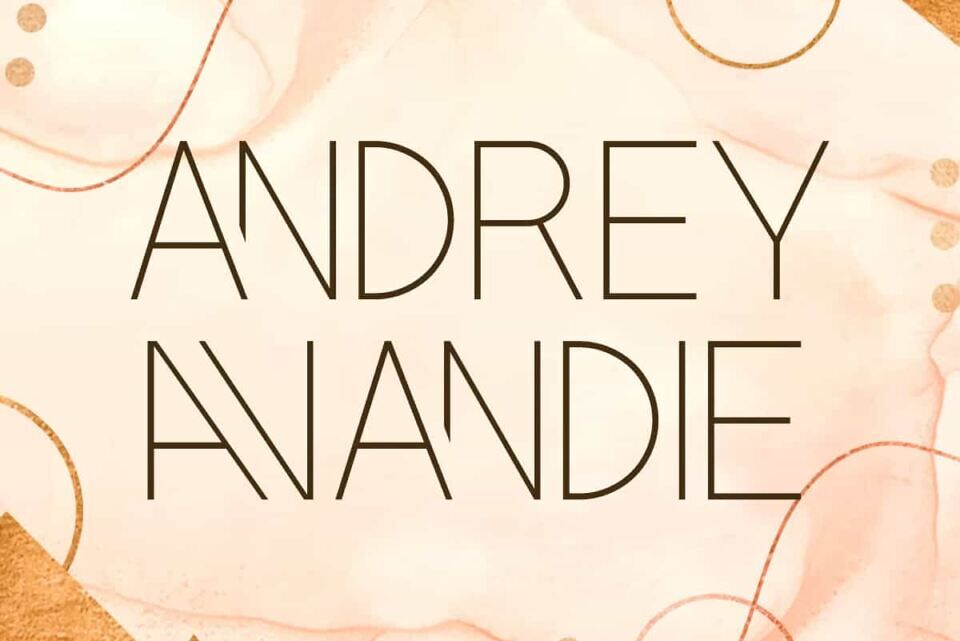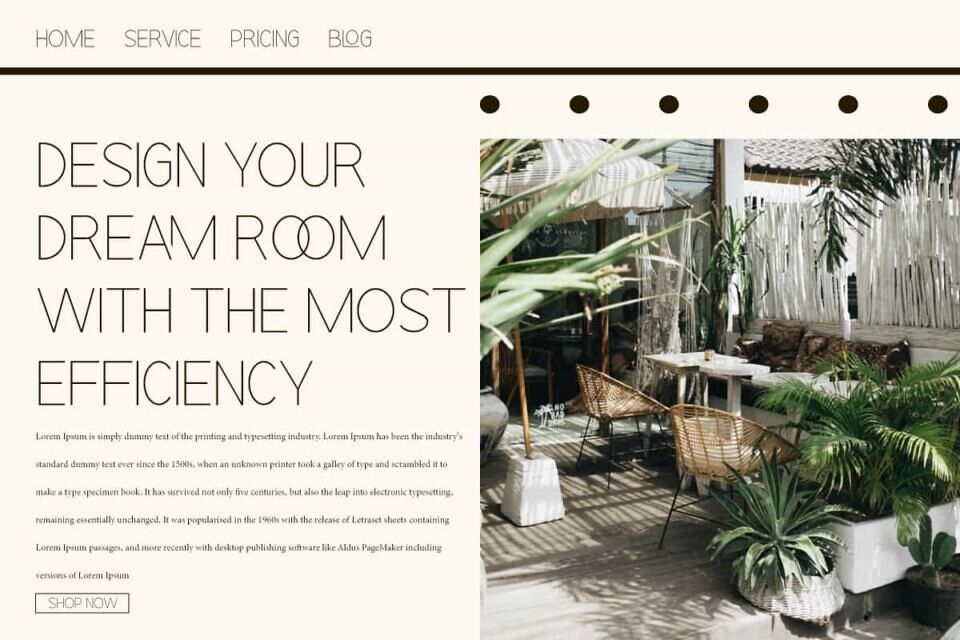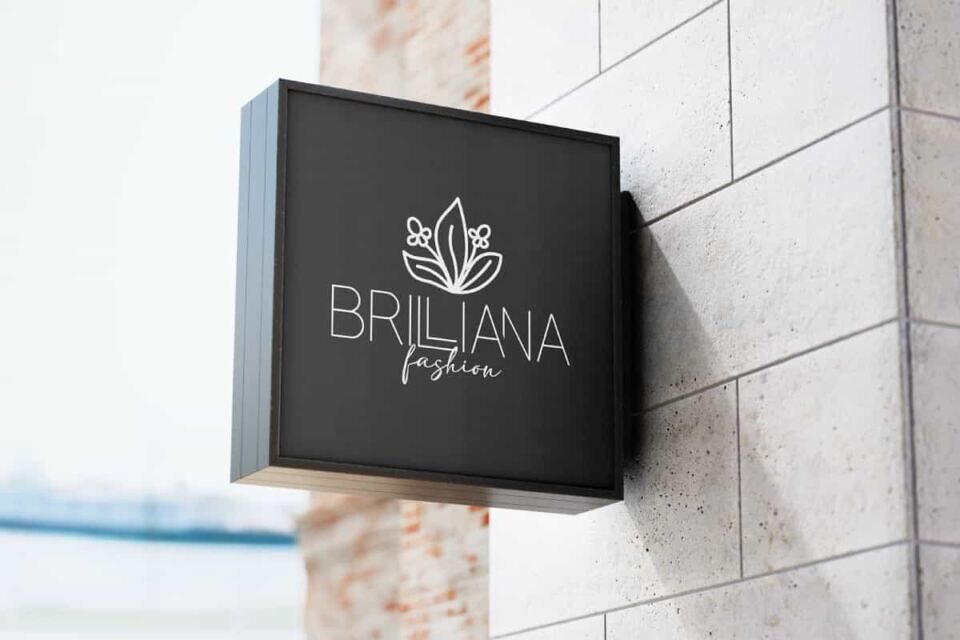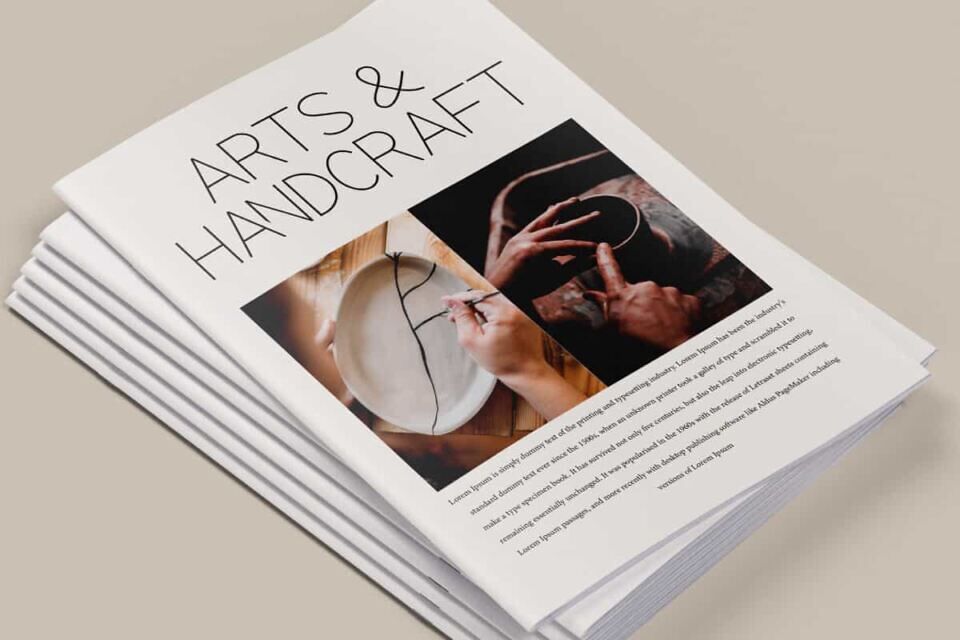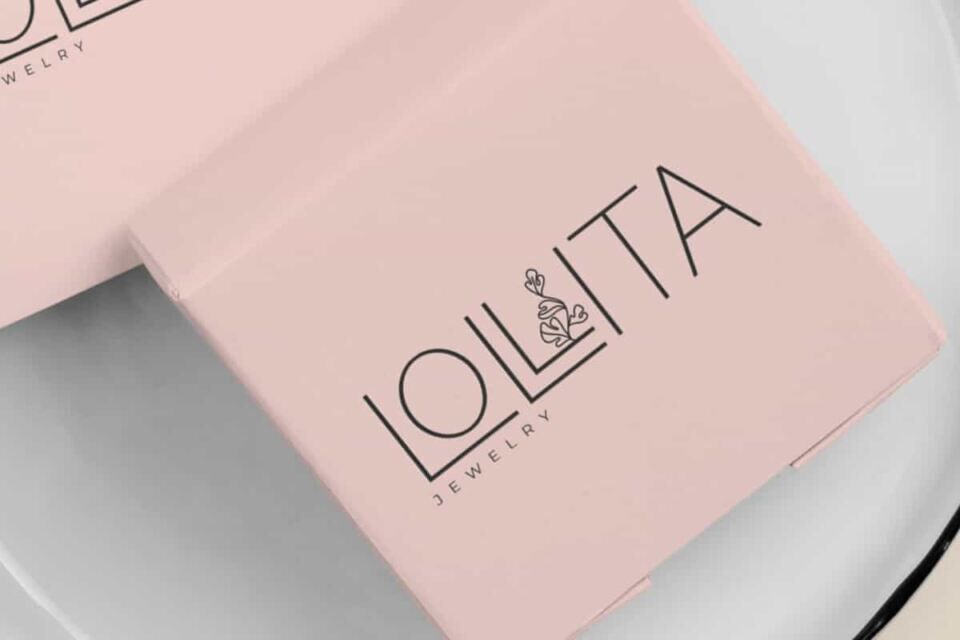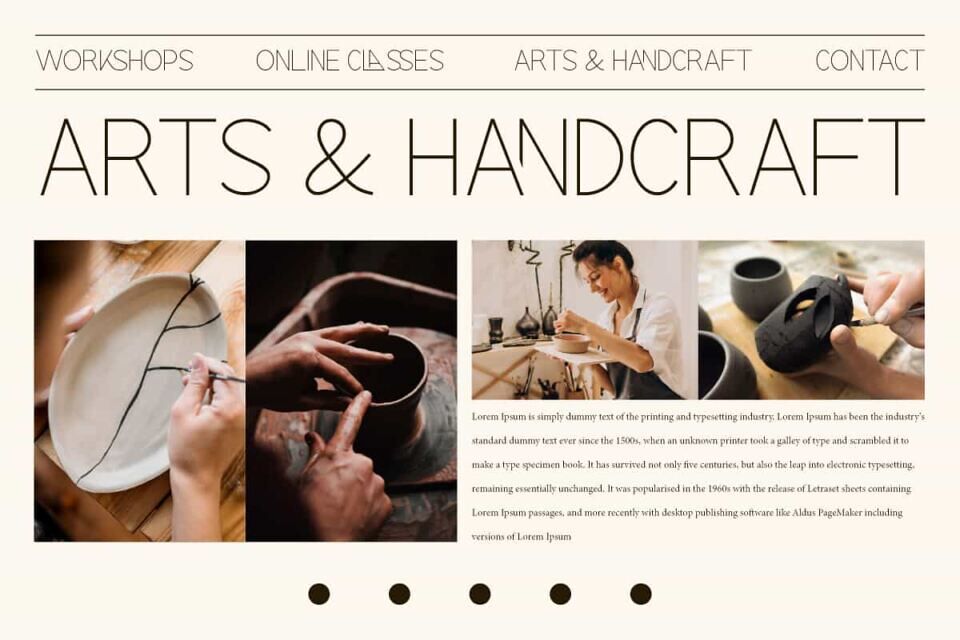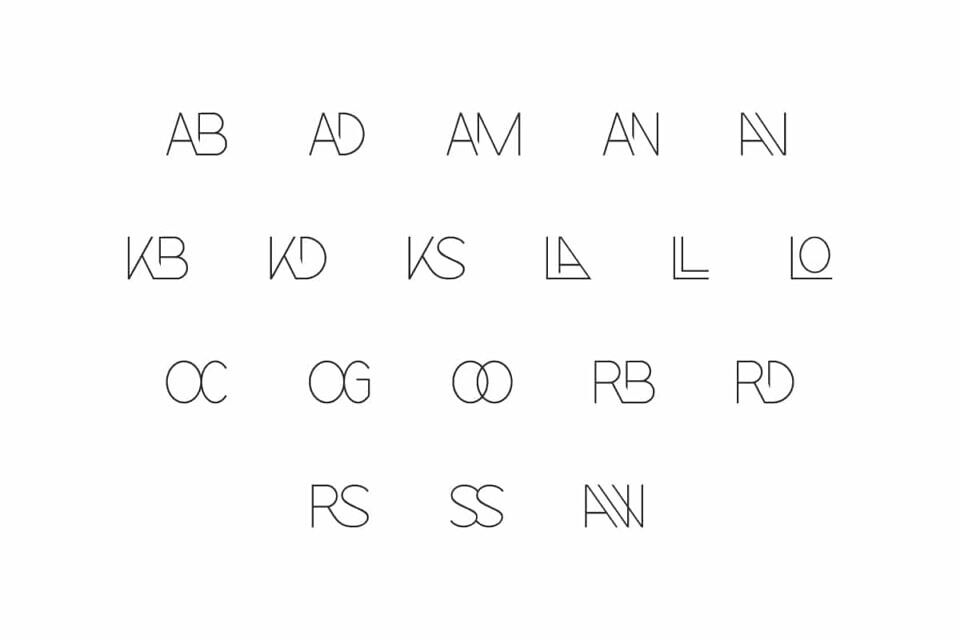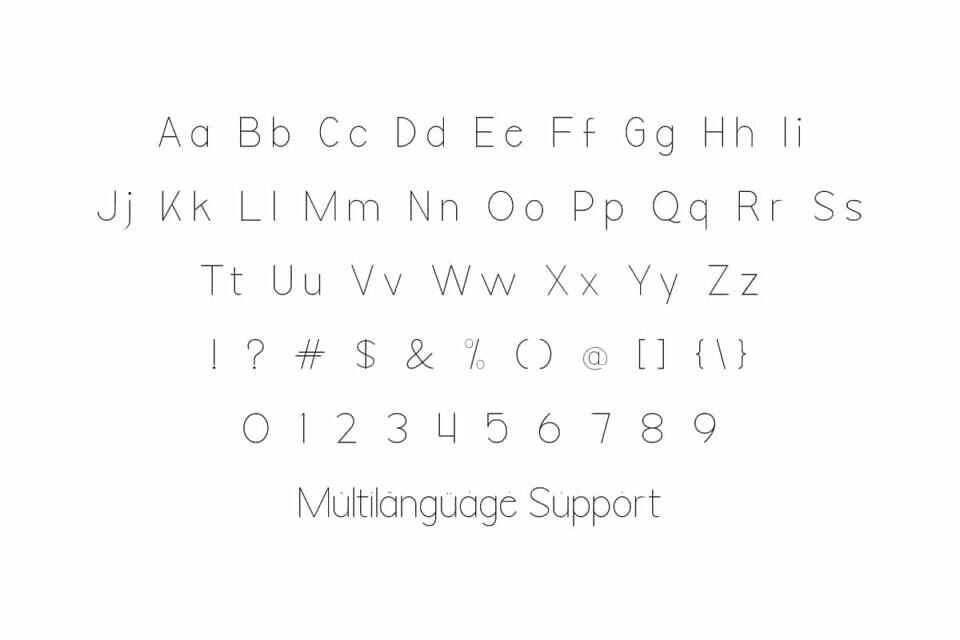
Andrey Avandie Font is a thin sans serif font with a minimalist design and futuristic aesthetic. Its clean and geometric lines give it an elegant and modern look. This font will be perfect for any projects, such as advertisement, blog, brand image, brochure, quotes, stationery, template design purpose, website, and more!
Andrey Avandie Font includes a complete set of Uppercase and Lowercase Basic Characters, Numbers, Punctuation, Symbol, and Ligature character. This font brings an exclusive and sophisticated feel to the design. Making it a perfect choice for a variety of fields, such as fashion, accessories and jewelry, beauty product, event or wedding organizer, flower shop, furniture, real estate, spa and salon, etc.